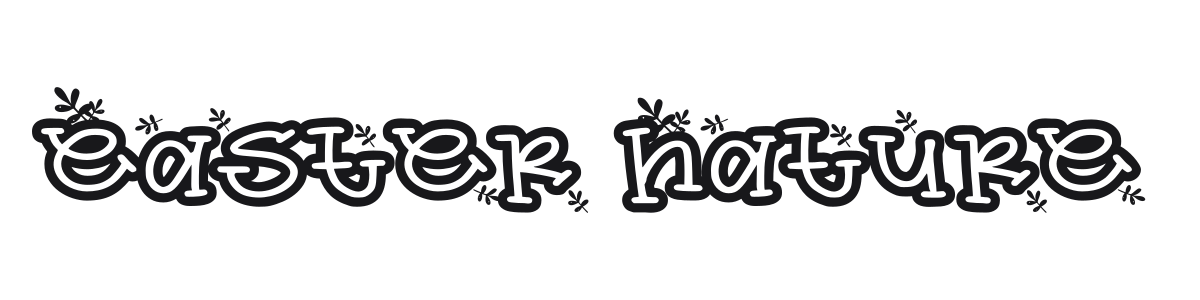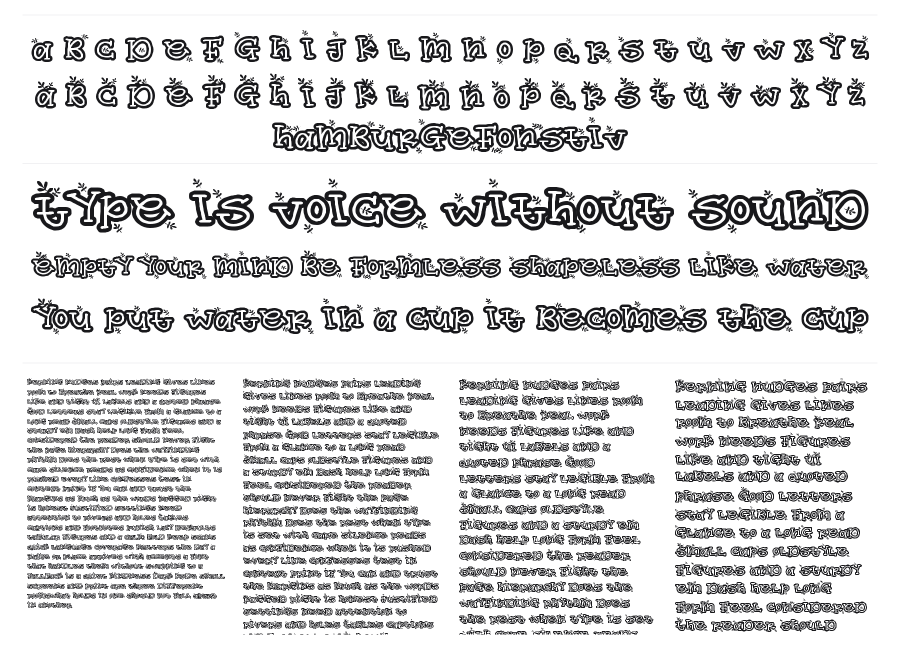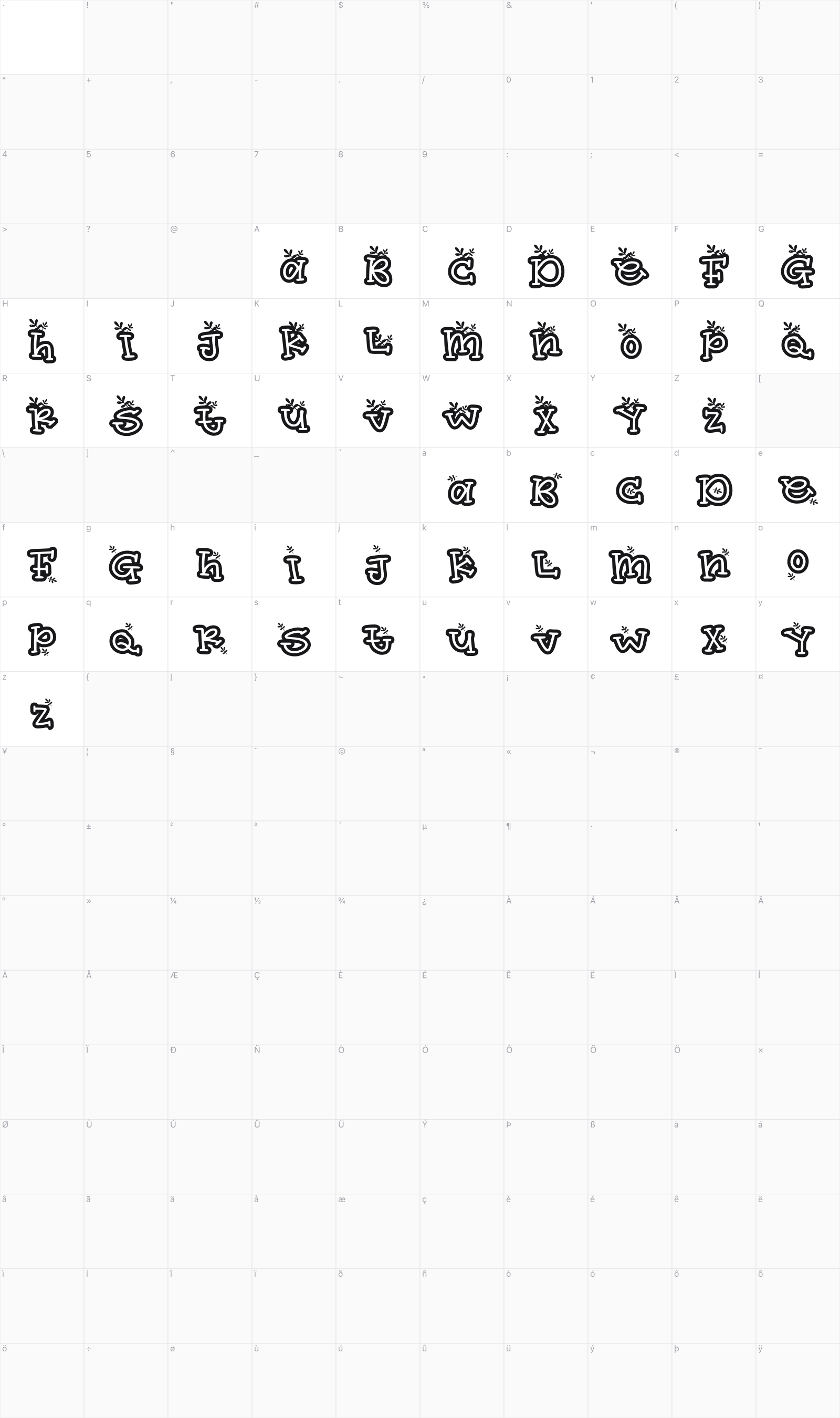
Easter Nature
Easter Nature is a chunky rounded display font with hand-drawn botanical embellishments woven directly into each character. Tiny leaves and sprigs sprout from the letters, giving the design a cheerful spring-holiday personality that goes beyond a standard decorative outline font. It fits naturally in seasonal greetings, children's content, and festive packaging.